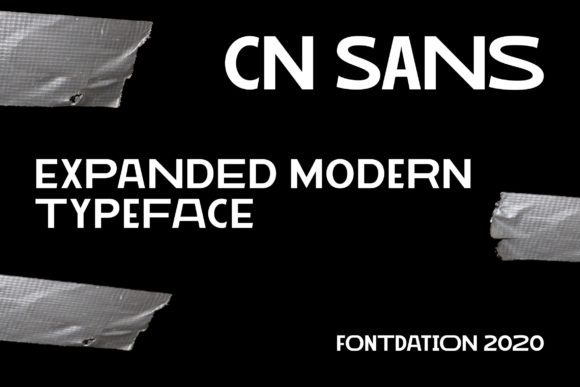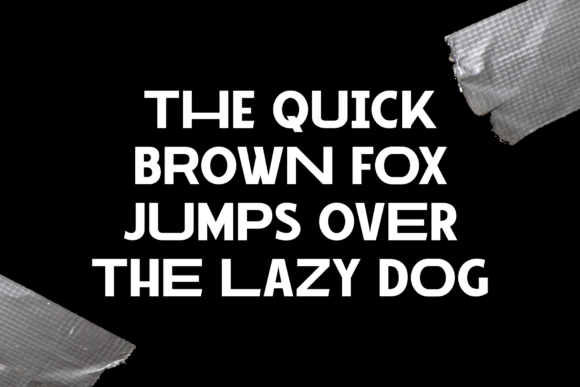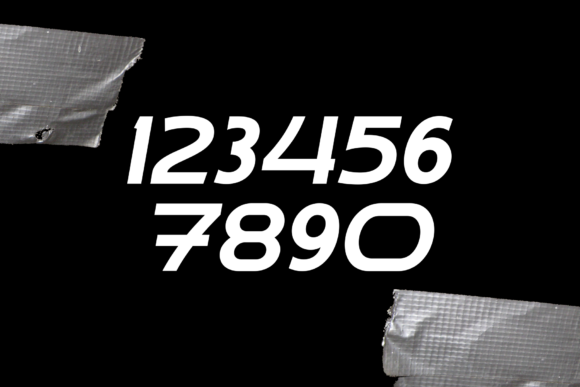
CN Sans Font
About the CN Sans Font
Step up your design game with CN Sans Font, a font that exudes confidence and style. CN Sans is an expanded modern font with an experimental feel. This unique sans serif will deliver any text with style and confidence.
Its expanded letterforms and experimental feel make CN Sans ideal for headlines, branding applications, and short impactful statements on posters or packaging. The unique character spacing prevents it from being legible in large blocks of text; it’s not suitable for body copy or UI elements requiring extended readability.
CN Sans projects a bold and modern personality, with a touch of playful irreverence. It suits brands aiming for a contemporary and confident image, perhaps in the fashion, technology, or entertainment sectors.
Pairing it with a clean sans-serif like Open Sans for body text maintains visual harmony while enhancing readability. For a more sophisticated look, consider a classic serif such as Garamond or a geometric sans-serif like Futura.